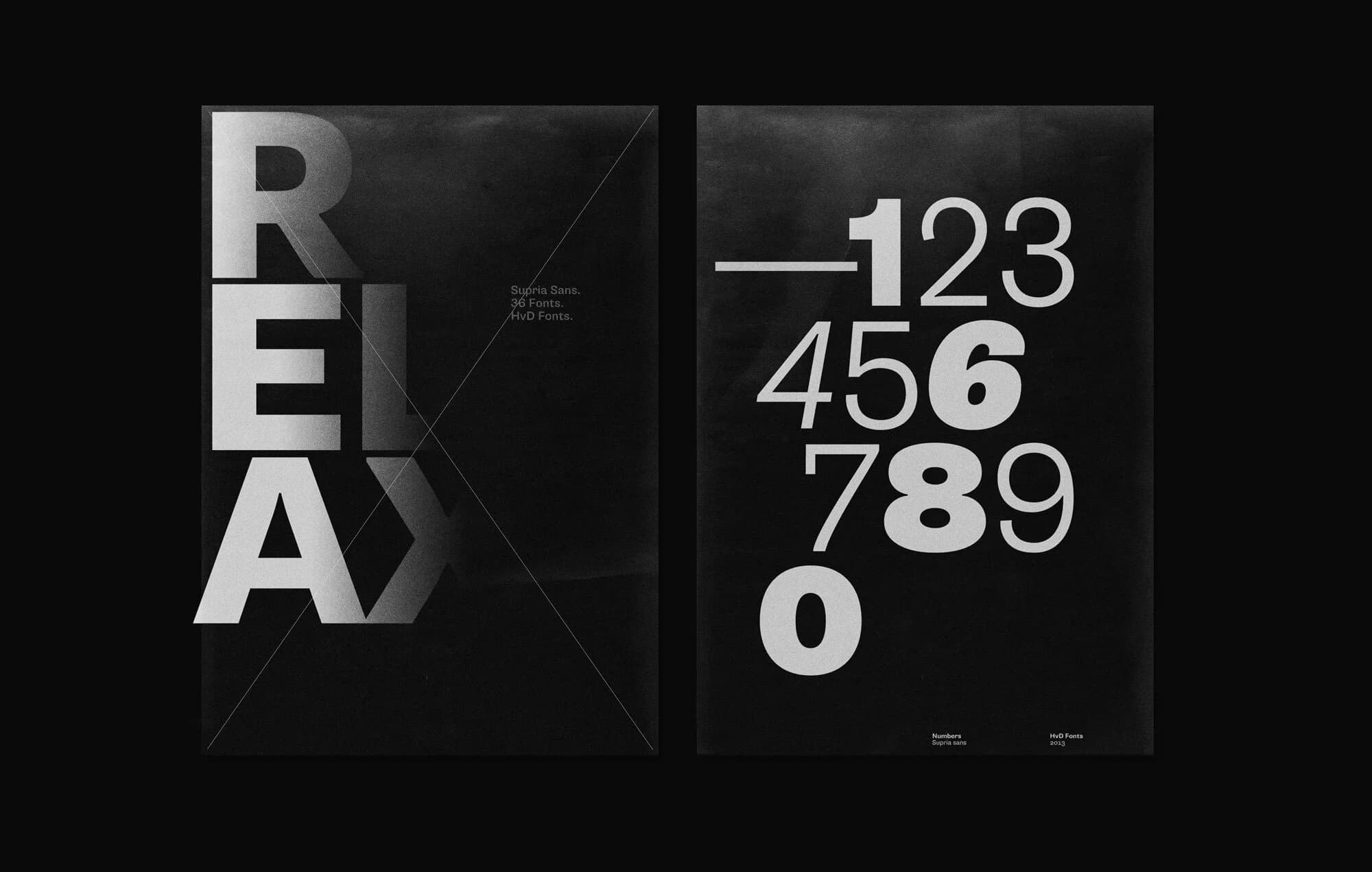
Supria Sans Condensed
A condensed companion to the Supria Sans family, offering a narrower cut suited to space-restricted text and interface work.
Supria Sans Condensed is the narrow-width variant of HvD Fonts' Supria Sans, a humanist sans designed for demanding text environments. The condensed proportions make it practical for editorial columns, wayfinding and UI contexts where horizontal space is at a premium. It retains the legible, even-tempered character of the parent family across a range of weights.
Supria Sans is a humanist sans-serif family; the Condensed variant maintains that warm, functional character in a narrower width suited to compact settings.